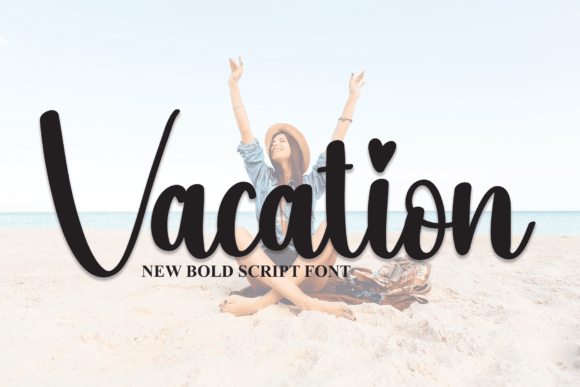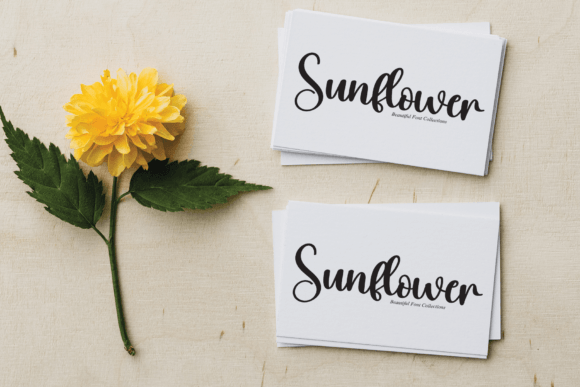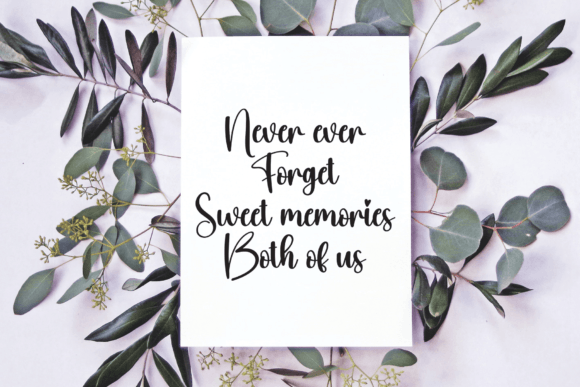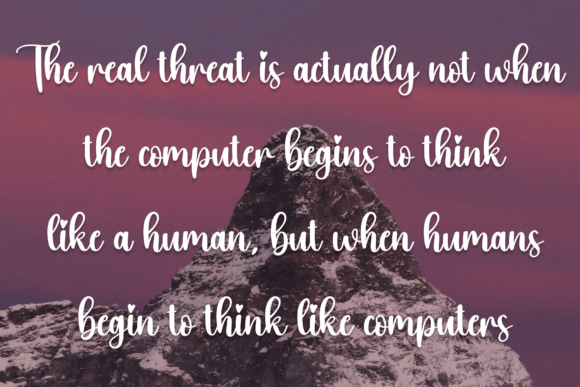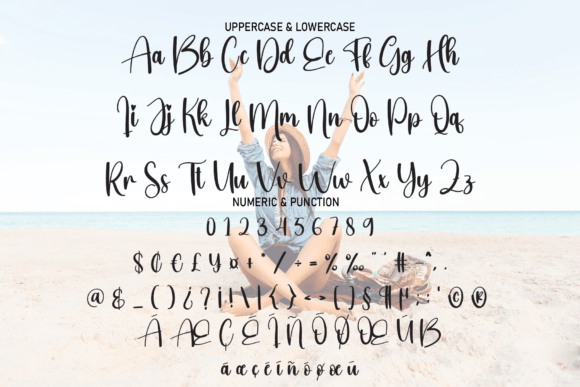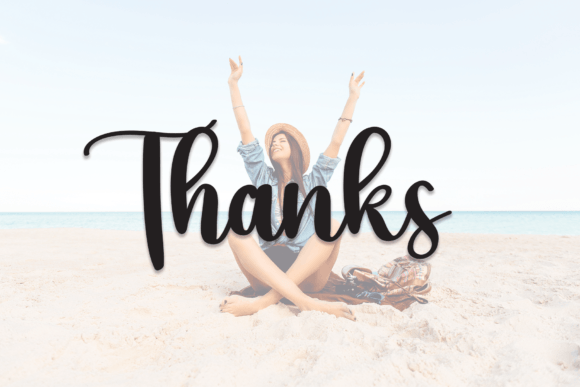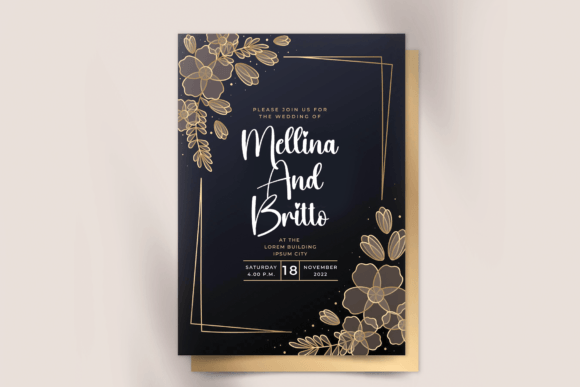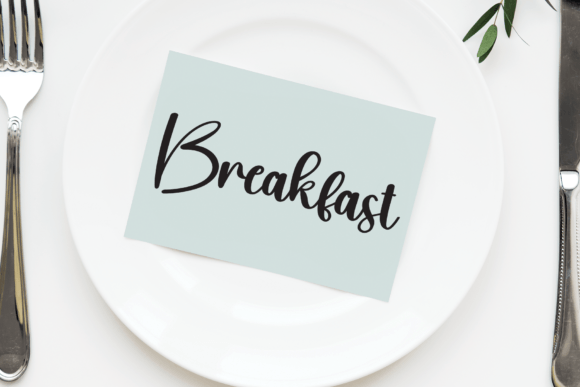
Vacation Font
About Vacation Font
Absolutely, the latest style of “Vacation” letters offers a versatile and visually appealing option for a wide range of creative projects. With its unique and contemporary design, these letters can enhance various applications, adding a touch of elegance and creativity to each project. Let’s explore how the latest style of “Vacation” letters can elevate different types of projects:
In **wall displays**, “Vacation’s” latest style letters create captivating focal points. Their artistic and modern design transforms empty walls into dynamic visual statements. Whether used for inspirational quotes, artistic expressions, or decorative elements, these letters add a sense of sophistication and creativity to any space, making it more inviting and aesthetically pleasing.
When it comes to **wedding invitations**, “Vacation’s” latest style letters bring a chic and trendy vibe to the designs. Their contemporary yet elegant appearance adds a modern touch to traditional invitations, appealing to couples seeking a stylish and unique aesthetic. The letters create a visually striking impression, making the invitations memorable and visually appealing to recipients.
In the realm of **social media post logos**, these letters establish a strong and recognizable brand identity. Their sleek and artistic form captures attention, ensuring that social media profiles stand out and leave a lasting impression. Whether used on profile pictures, cover photos, or promotional posts, “Vacation’s” latest style letters create a cohesive and visually appealing look, enhancing the brand’s online presence.
**Advertisements** require eye-catching elements, and “Vacation’s” latest style letters deliver just that. Their contemporary and sophisticated design makes them ideal for advertising campaigns. Whether promoting products, services, or events, these letters add a touch of modernity, making the advertisements visually appealing and memorable to the audience.
For **product packaging and designs**, “Vacation’s” latest style letters create a distinctive and trendy brand image. Their sleek and stylish form enhances labels, tags, and promotional materials. The letters elevate the product’s visual appeal, making it stand out on the shelves and leaving a lasting impression on consumers.
In **photography**, these letters serve as elegant **watermarks**, adding a signature touch to images. Their modern and artistic design complements photographs without overpowering them, creating a harmonious blend of style and imagery. The watermark’s presence enhances the photographs, subtly reinforcing the photographer’s brand identity.
For **invitations and stationery**, “Vacation’s” latest style letters bring a contemporary and sophisticated edge. Whether used for formal invitations, personalized notecards, or business correspondence, these letters make a statement. Their sleek design adds a touch of modern elegance, making the invitations and stationery items stand out and leaving a lasting impression on recipients.
In summary, the latest style of “Vacation” letters is a valuable asset for any project that requires a handwritten taste with a contemporary twist. Their modern and artistic design adds a touch of creativity and sophistication, making them suitable for wall displays, wedding invitations, social media post logos, advertisements, product packaging, product designs, labels, photography, watermarks, invitations, stationery, and a wide range of other creative endeavors. Embrace the stylish flair of “Vacation’s” latest style letters, and let them infuse your projects with a modern and visually appealing charm, making them truly exceptional and memorable.